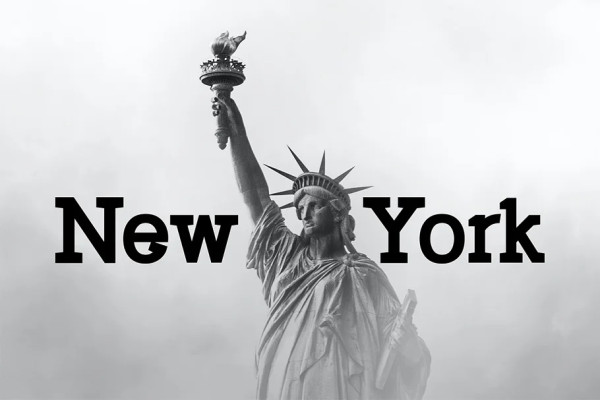
Smackers Font
Smackers Font – Display Serif Font. Modern Serif font that feels beautiful classy, elegant, and modern. This font is ideally suited for a wide variety of projects, such as signature, stationery, logo, wedding, typography quotes, magazine or book covers, website headers, clothing, branding, packaging design, and more. Also, fashion-related branding or editorial design displays both masculine and feminine qualities.
Classification: Serif Fonts, Slab Serif Fonts